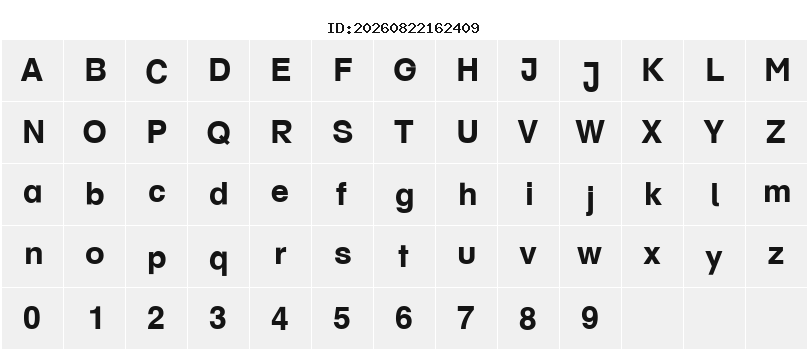
SchulbuchSued Preview
About SchulbuchSued.ttf
SchulbuchSued.ttf is a modern, elegant sans-serif font designed for ultimate readability and visual harmony. Perfect for branding, headlines, web design, and print materials.